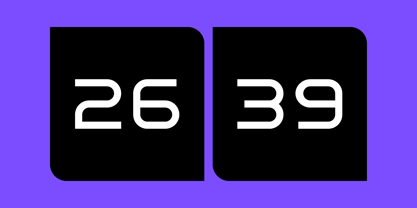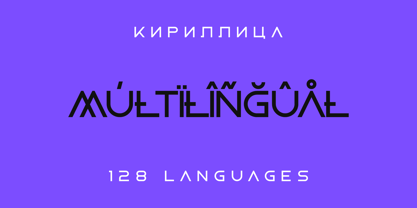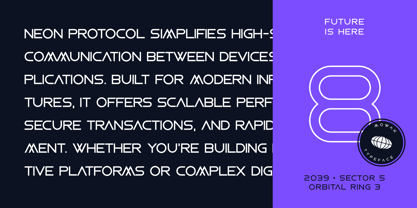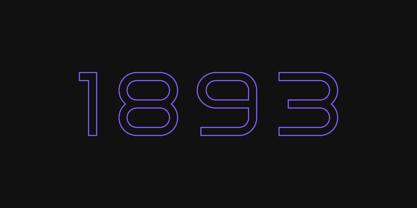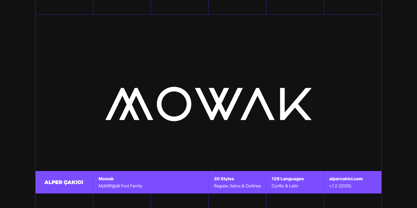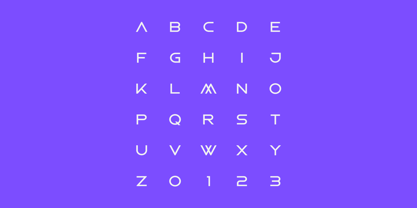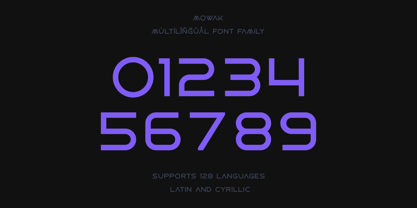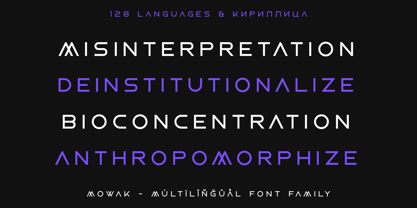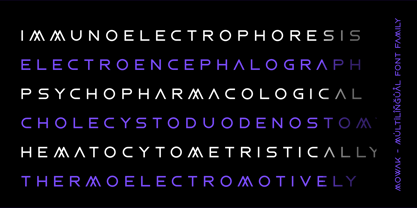
Mowak
by AlperCakici
The Mowak Font Family was designed by Alper Çakıcı and published by AlperCakici. Mowak contains 30 styles and family package options. More about this family
Mowak is a rounded futuristic typeface designed for creators who want clean geometry with a touch of softness. Its smooth curves, balanced proportions, and modern sci-fi character make it ideal for branding, interfaces, packaging, apparel, and digital products. Mowak supports an extensive multilingual range—including over 120 languages—making it a versatile choice for global communication. Whether you're designing sleek logos or expressive headlines, Mowak delivers clarity, style, and a forward-thinking aesthetic.